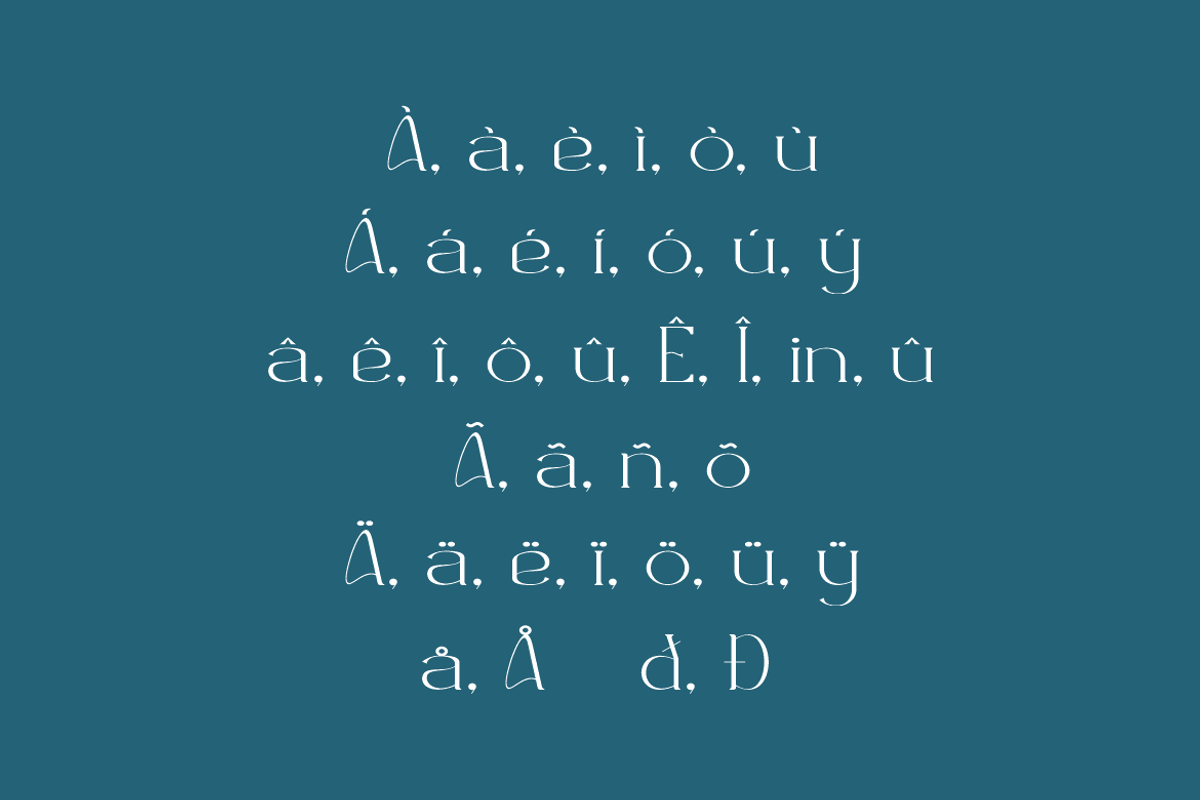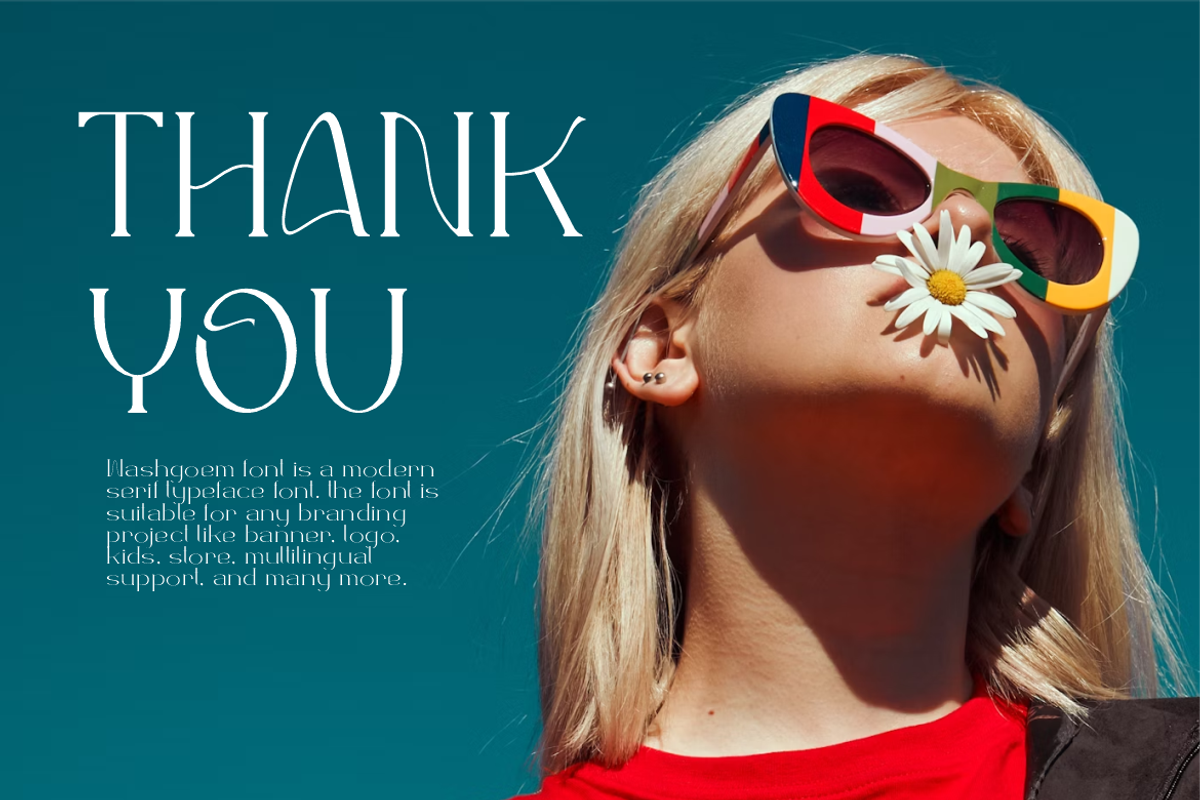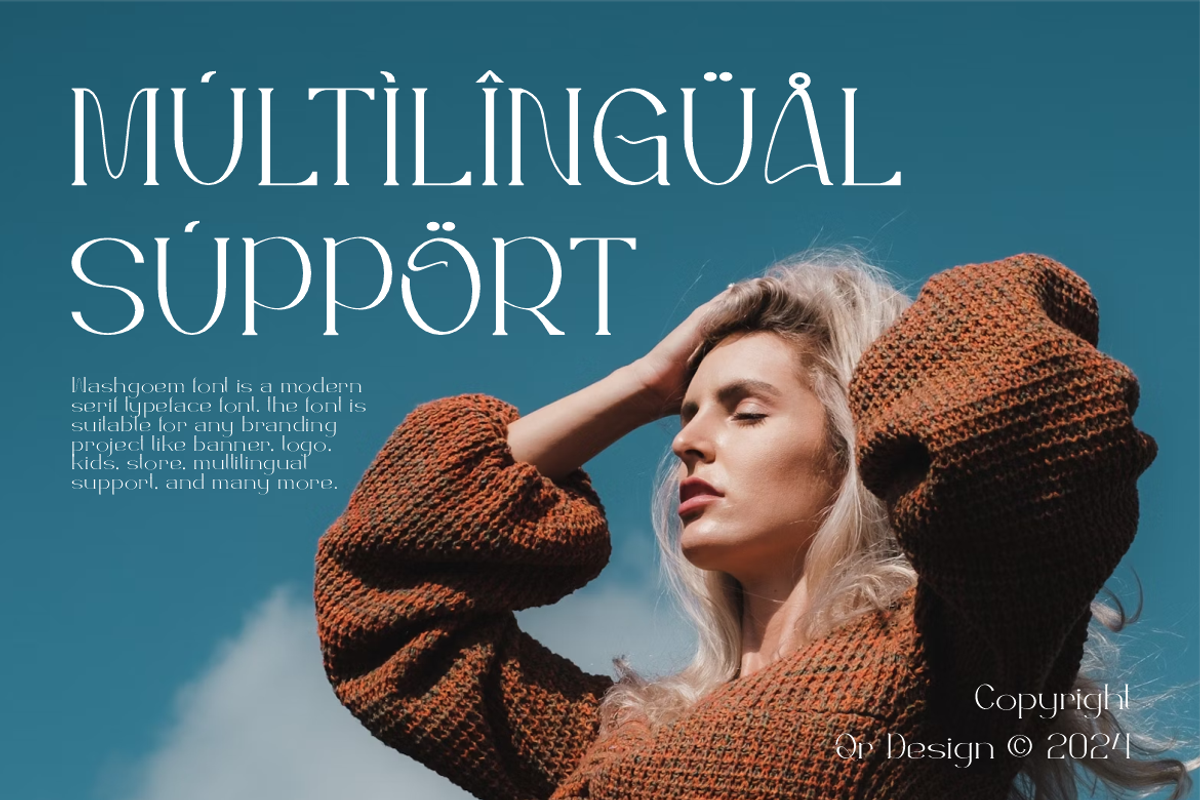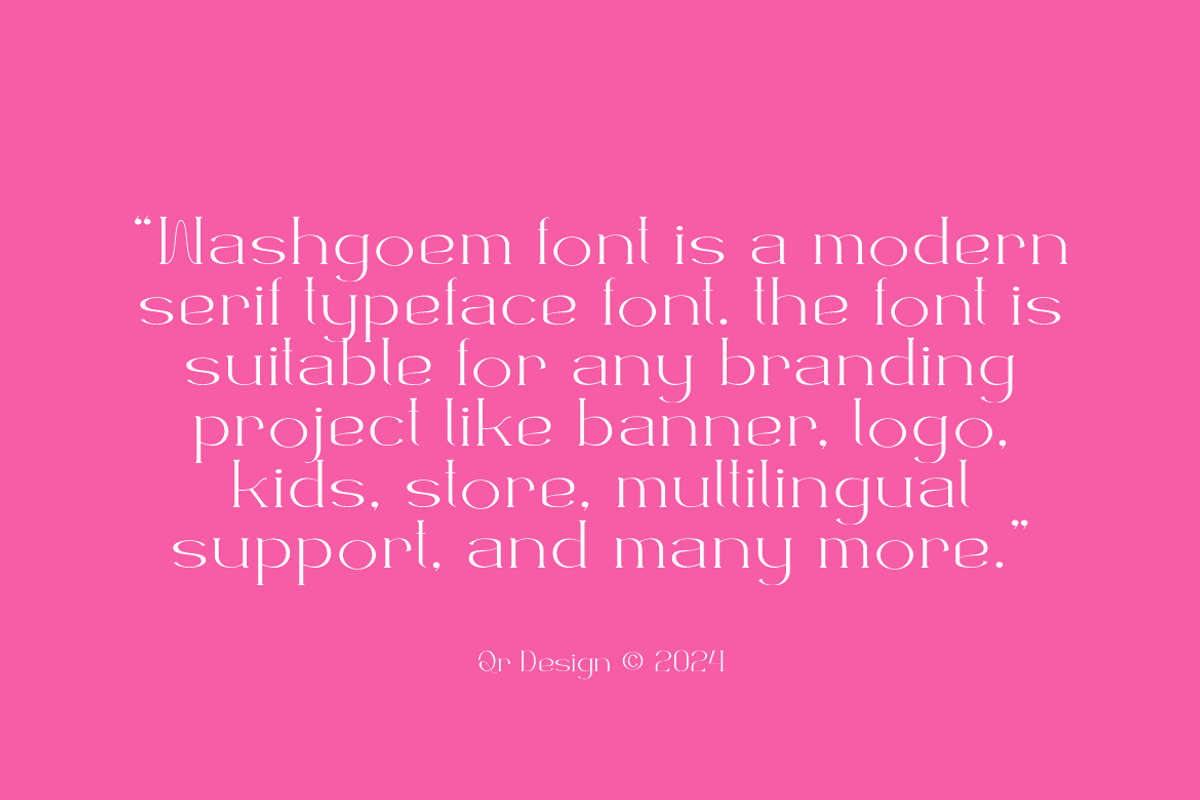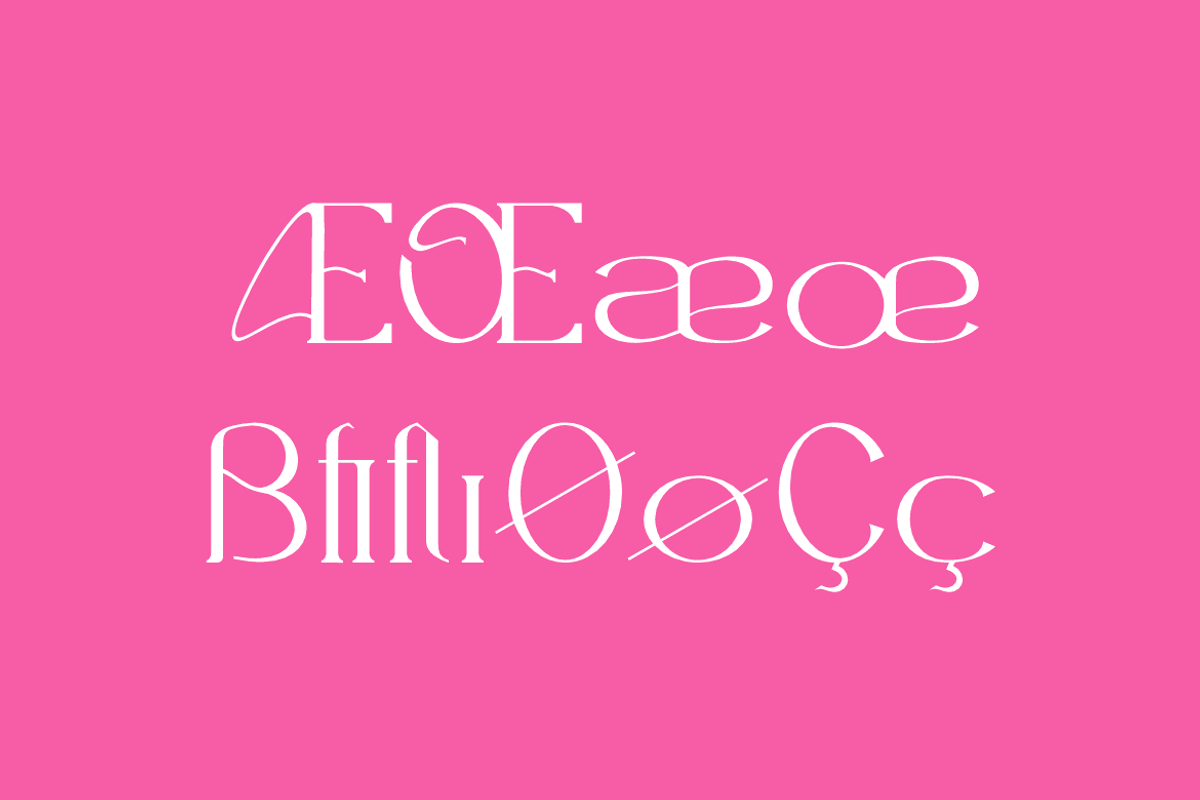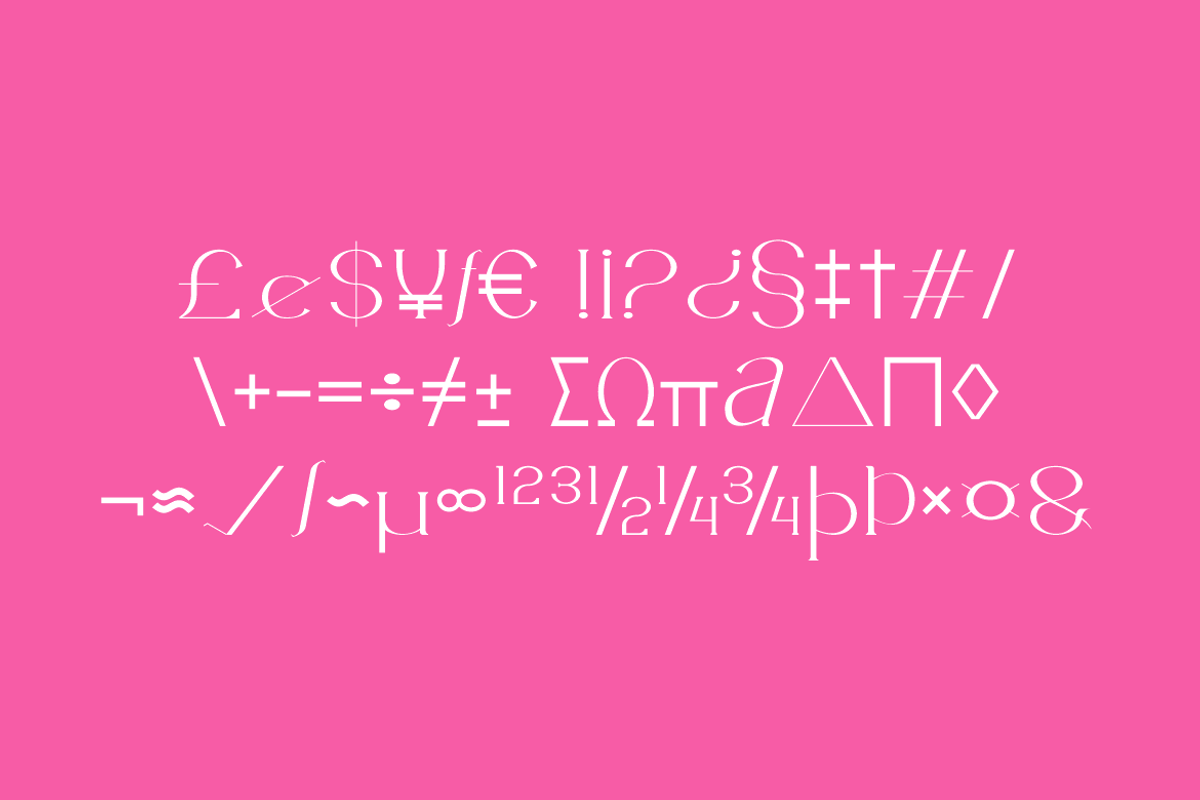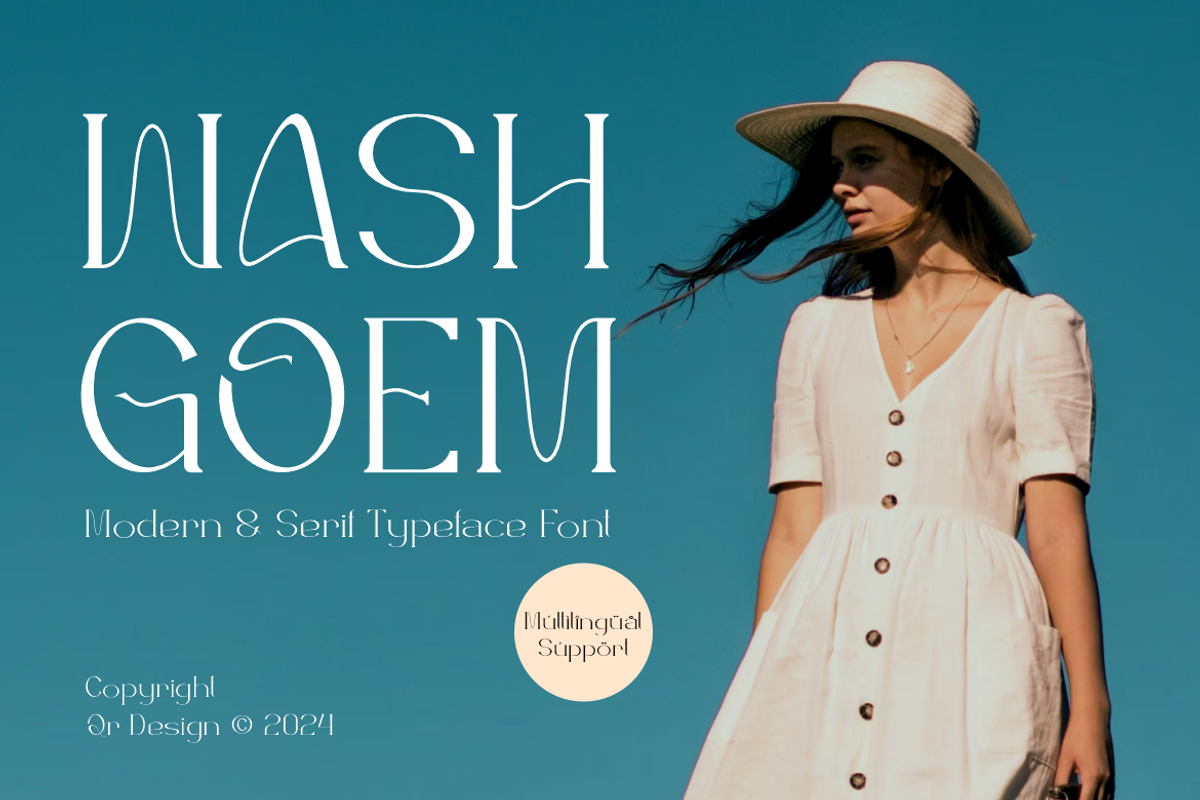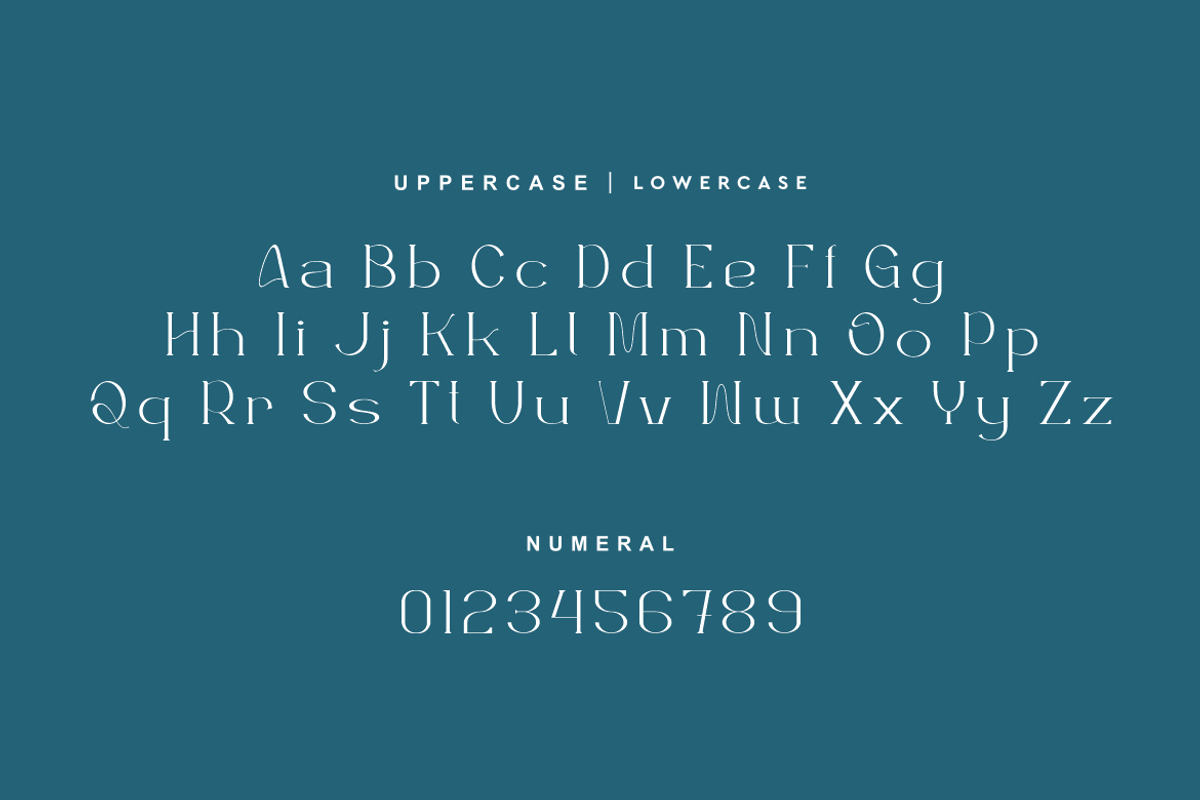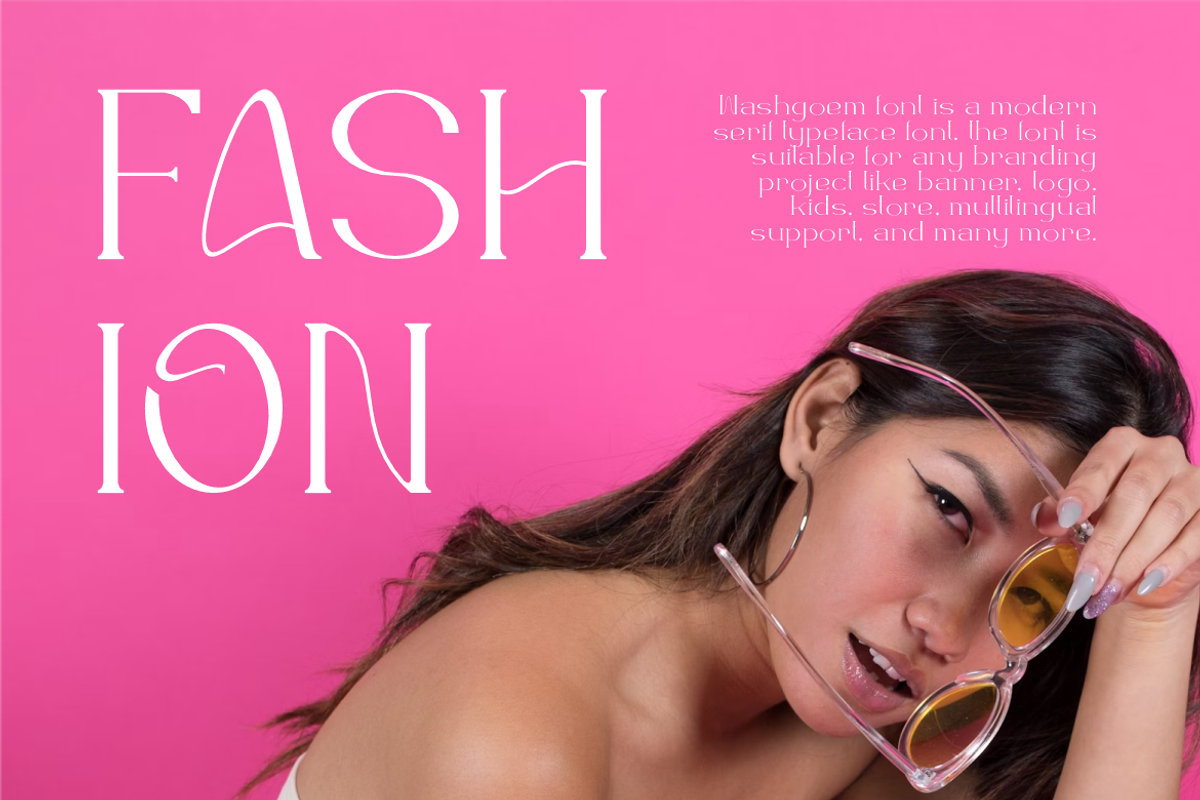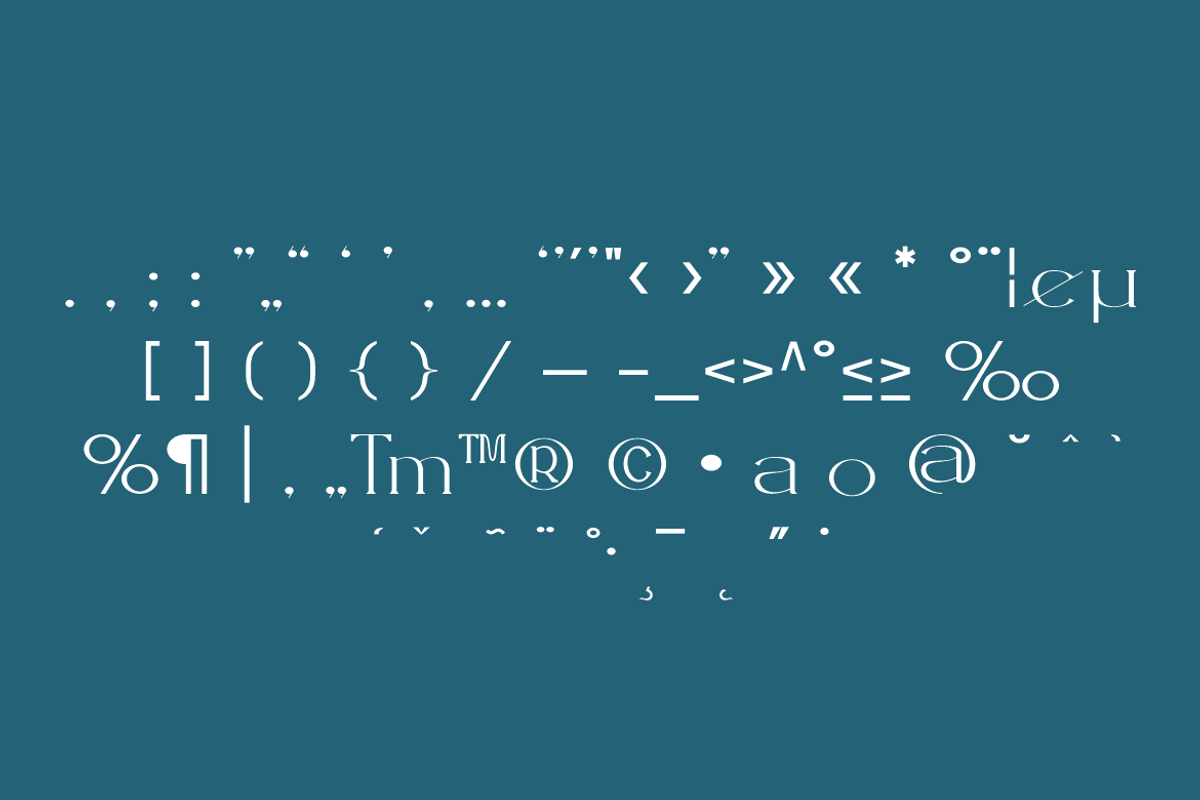
Washgoem - Modern & Serif Typeface
Washgoem Font is a serif and authentic display font. The font is suitable for any branding project like stylish, poster, logo, sport, and many more. Outstanding in a wide range of contexts.
Main Features
- Ligatures & Alternate
- Numeral & Punctuations
- Extended Character Set